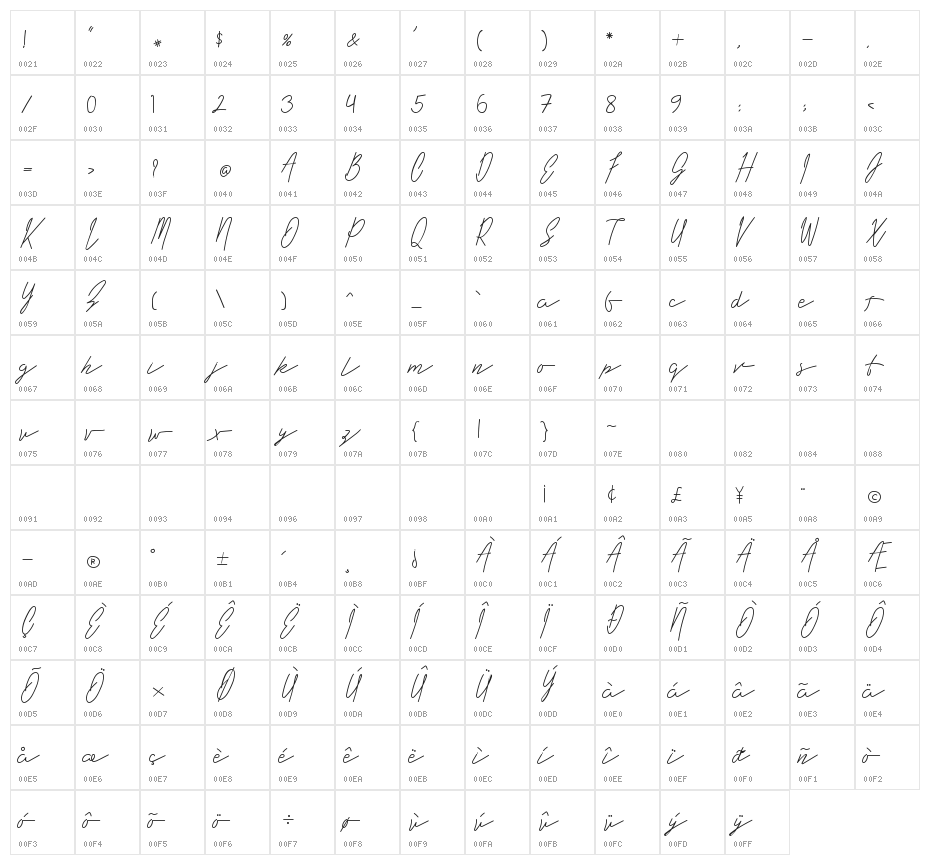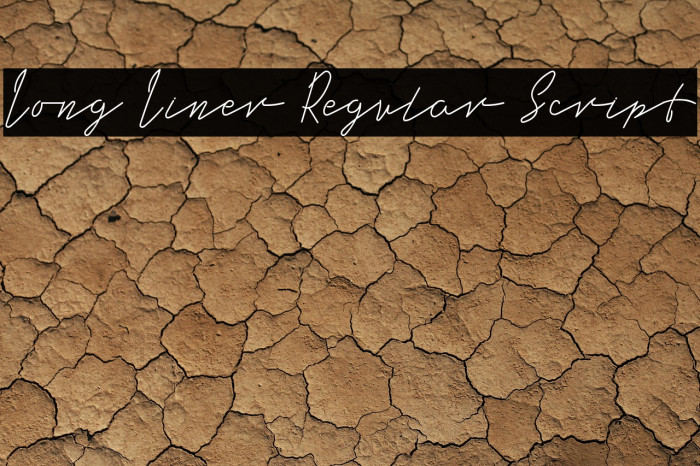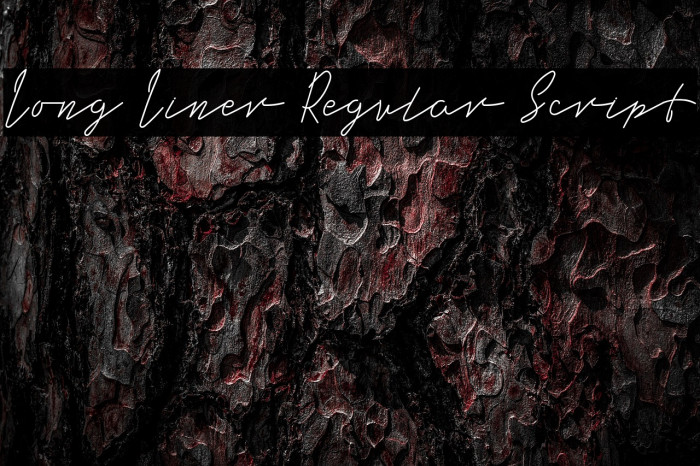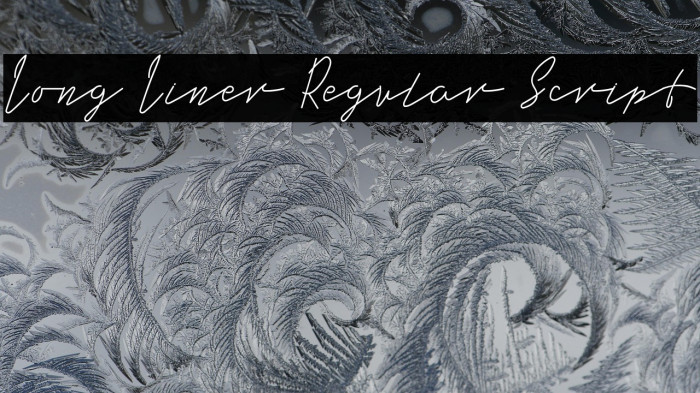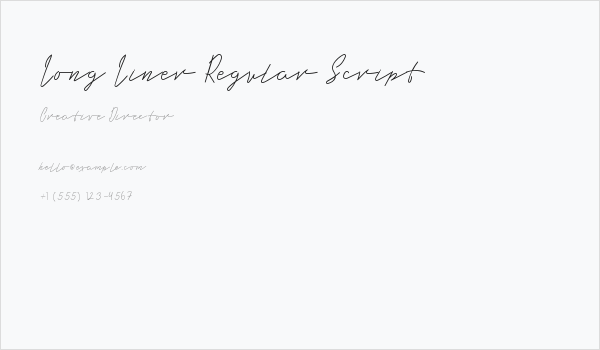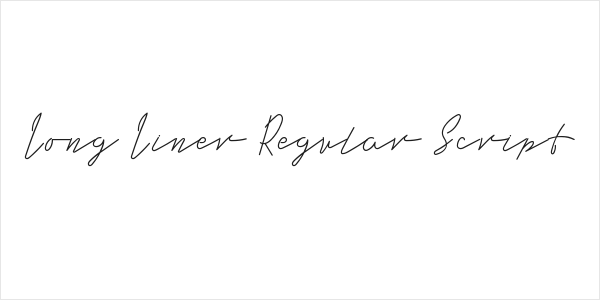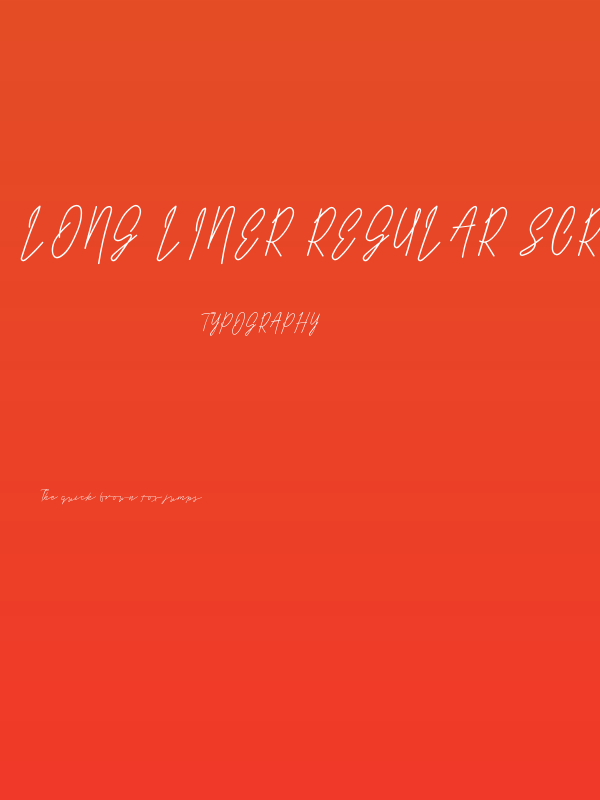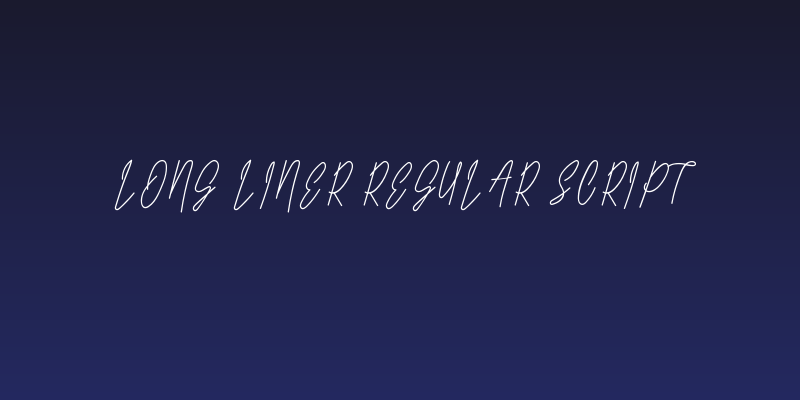
Long Liner Regular Script Font
Long Liner Regular Script Description
This elegant script font features a fluid and continuous stroke that mimics the natural flow of handwriting. The uppercase letters are tall and slightly slanted, giving a sense of movement and grace. The lowercase letters are connected, enhancing the cursive style, and the overall appearance is both sophisticated and approachable. The numerals maintain the same fluidity, ensuring consistency across all characters. Special characters are thoughtfully designed to match the script's aesthetic, making it versatile for various uses.